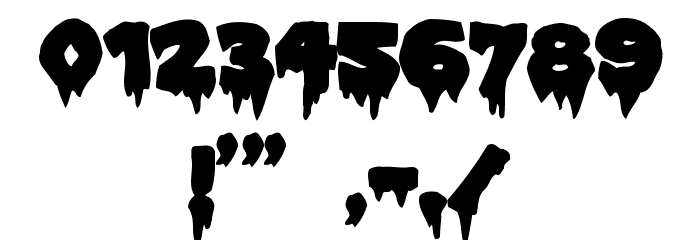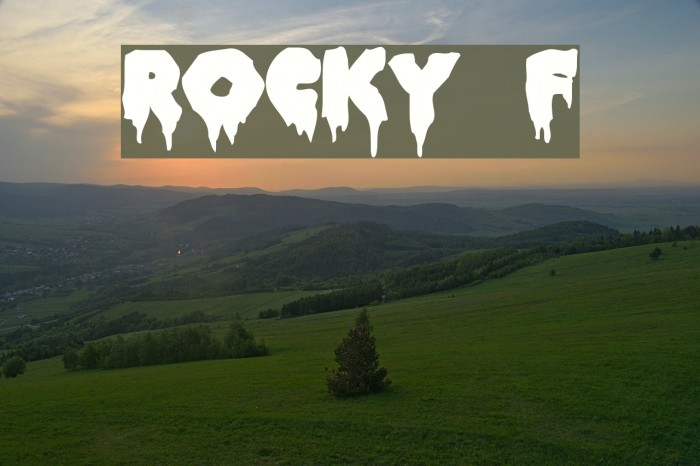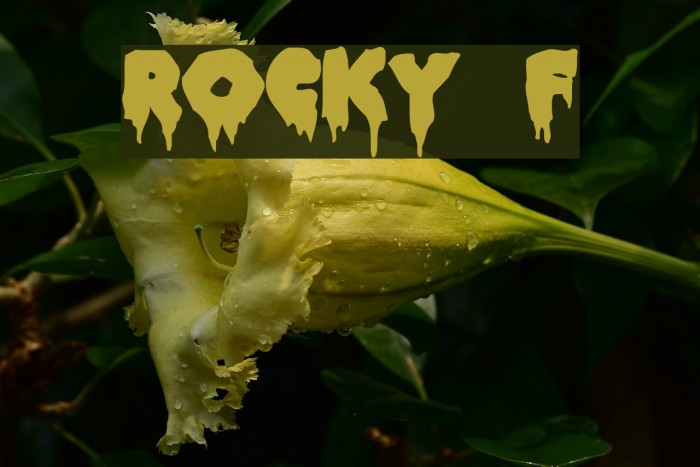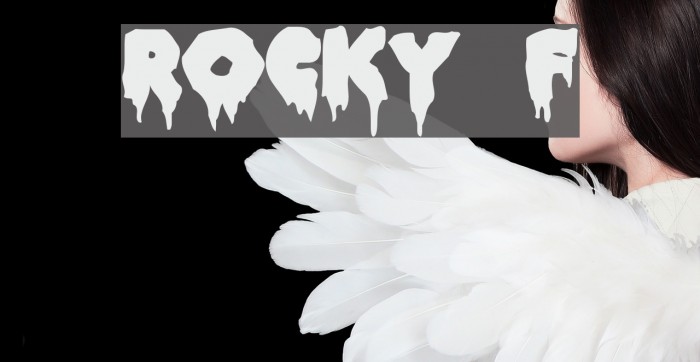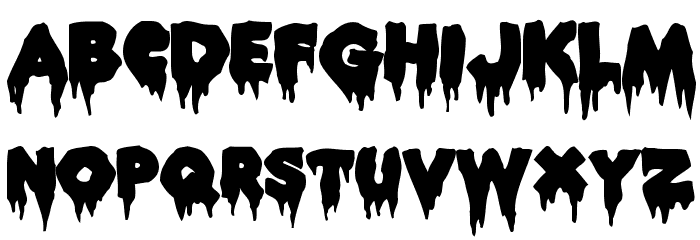
ROCKY Font
ROCKY Description
This font features a bold and dramatic style with a dripping effect that gives it a spooky, horror-themed appearance. The characters are thick and heavy, with irregular edges that resemble melting or dripping liquid. This unique design element makes it stand out, capturing attention with its eerie and unsettling aesthetic. The uppercase and lowercase letters maintain a consistent style, with numbers and special characters following the same theme. The font's overall look is perfect for projects that require a touch of the macabre or a Halloween-inspired vibe.
A bold, dripping font with a spooky, horror-themed style from Images & Symbols fonts.
- Proposed Projects: Ideal for Halloween posters, horror movie titles, themed party invitations, and haunted house signage.